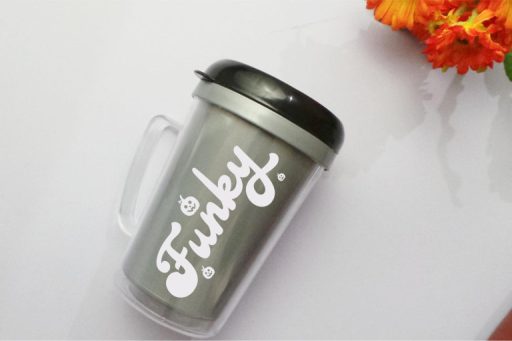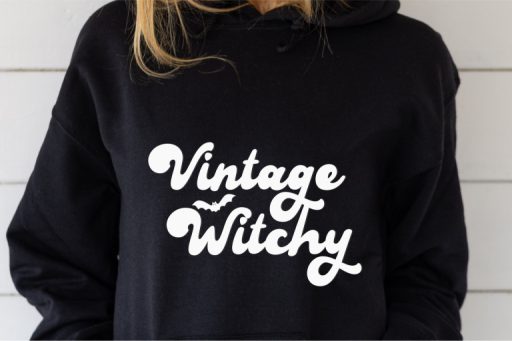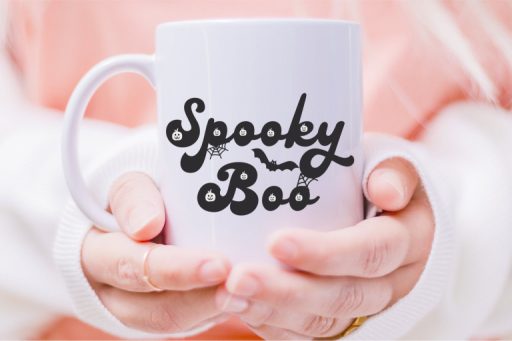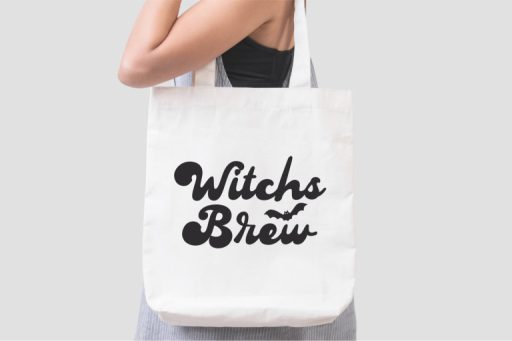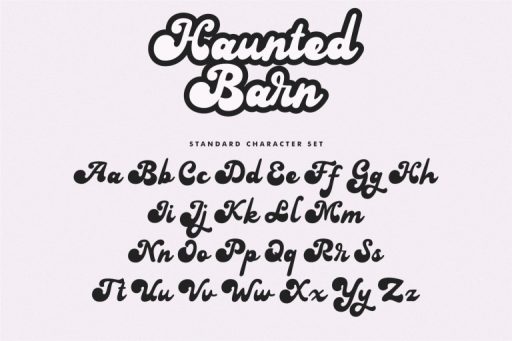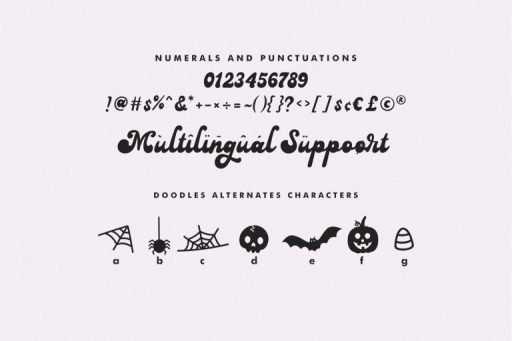
Haunted Barn - Retro Halloween Font From Jimtype Studio
Haunted Barn Font
Haunted Barn – Retro Halloween Font from Jimtype Studio
Welcome to the ‘Haunted Barn‘ Font Collection! Dive into the nostalgic vibes of the 70s with our retro-inspired script font, perfectly infused with the eerie essence of Halloween. Unleash your creativity and add a touch of vintage spookiness to your designs with ‘Haunted Barn‘. Explore our versatile collection today and let your imagination run wild. Get ready to turn ordinary into extraordinary with this one-of-a-kind font. Happy haunting!